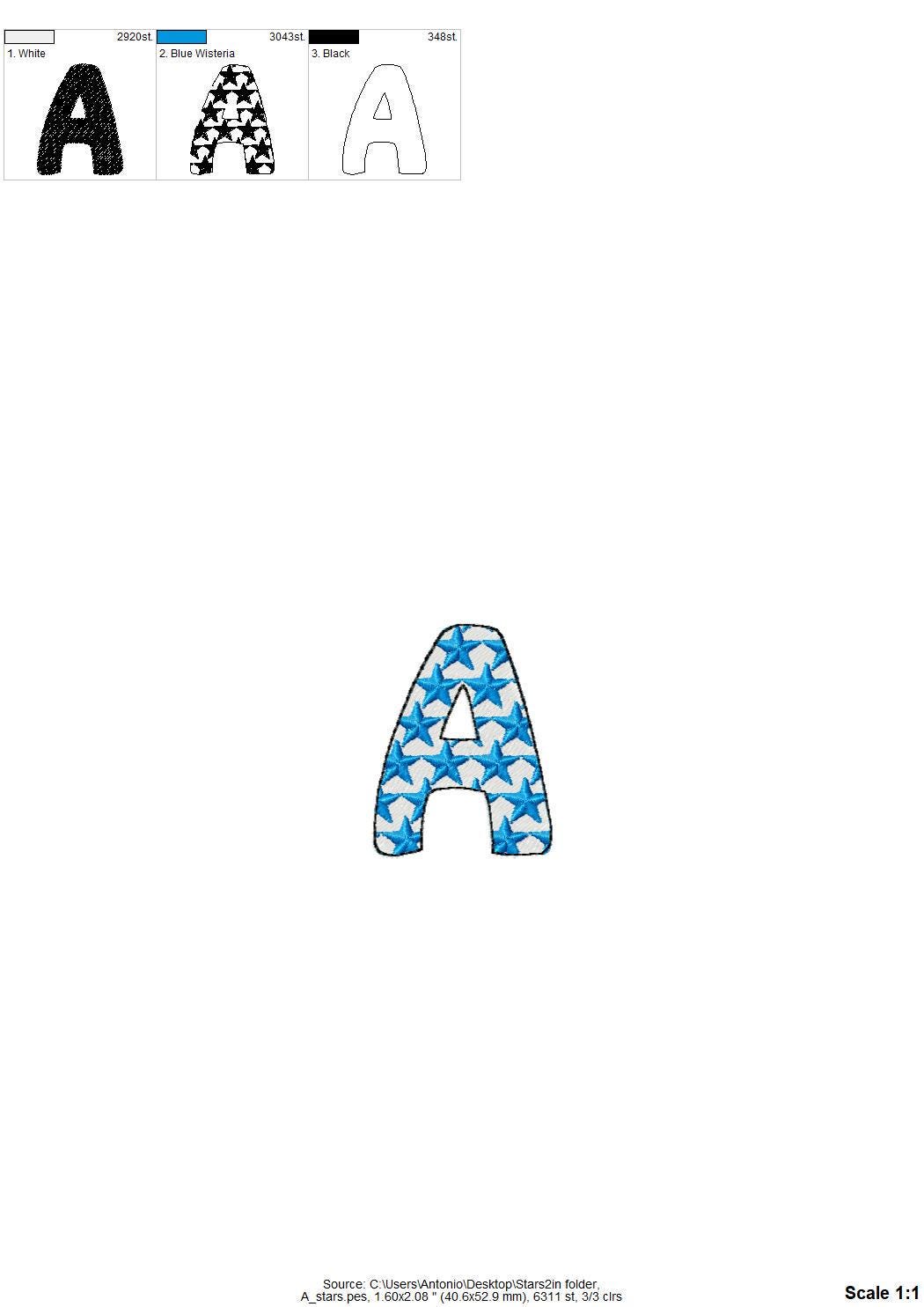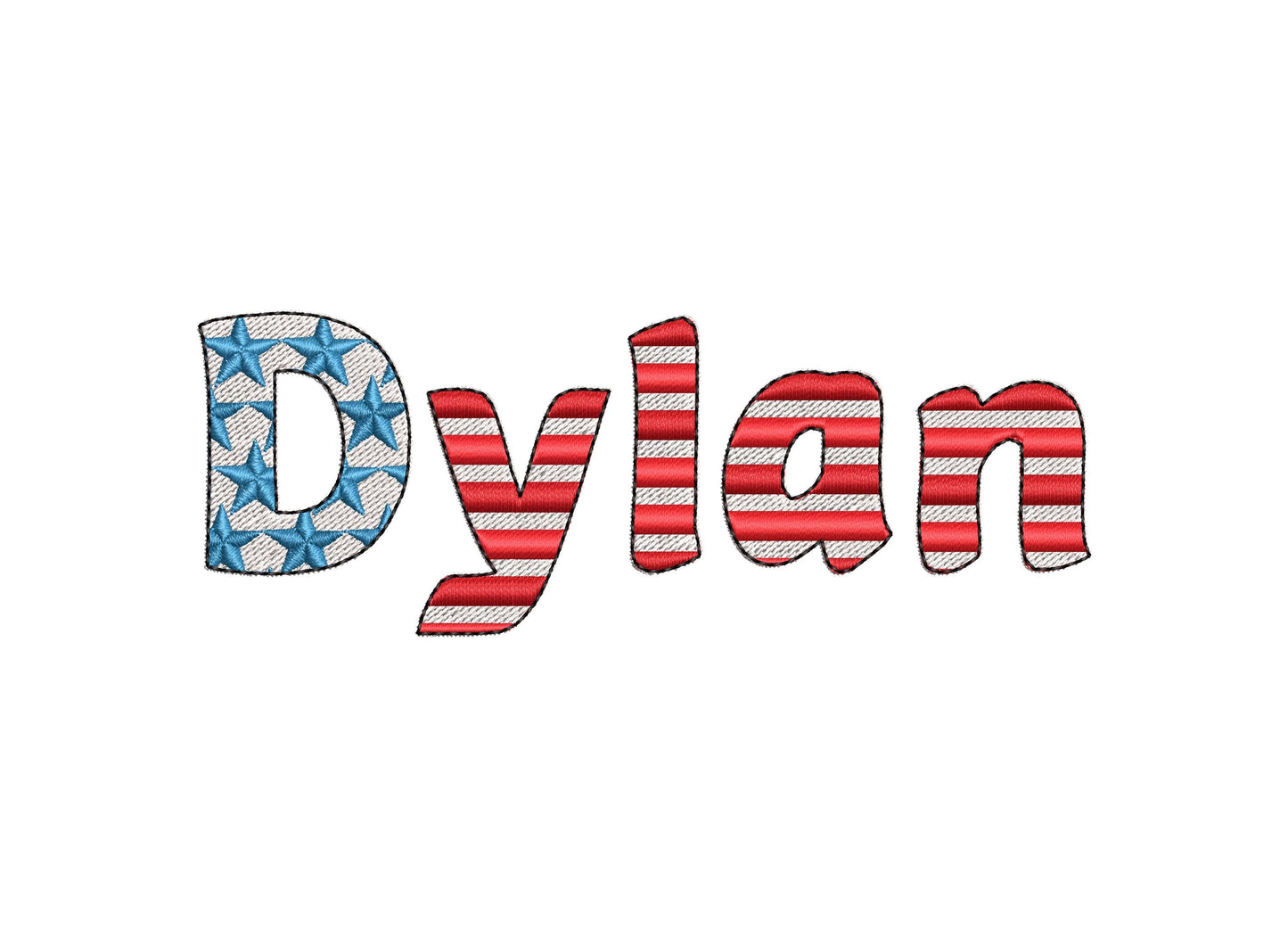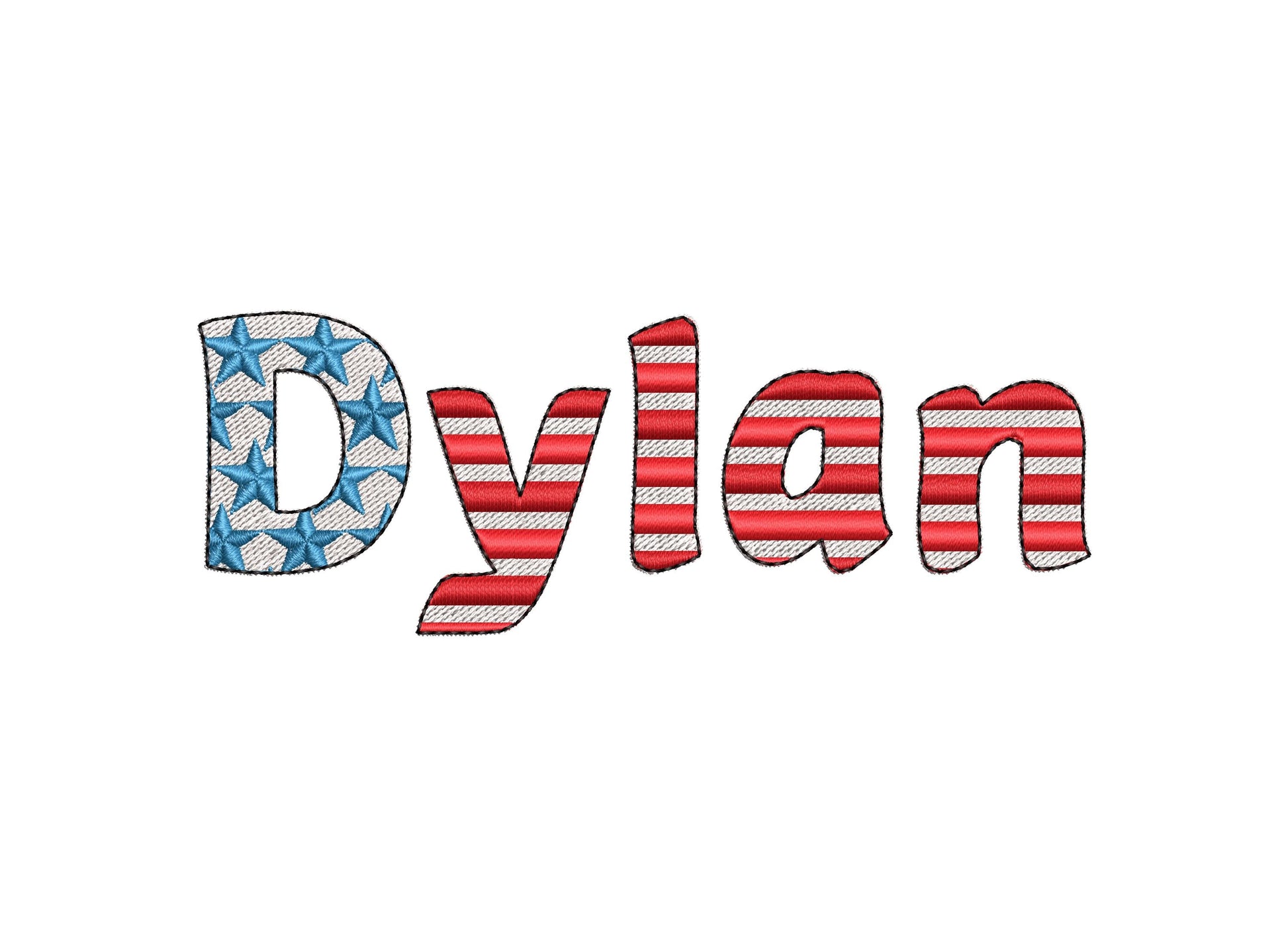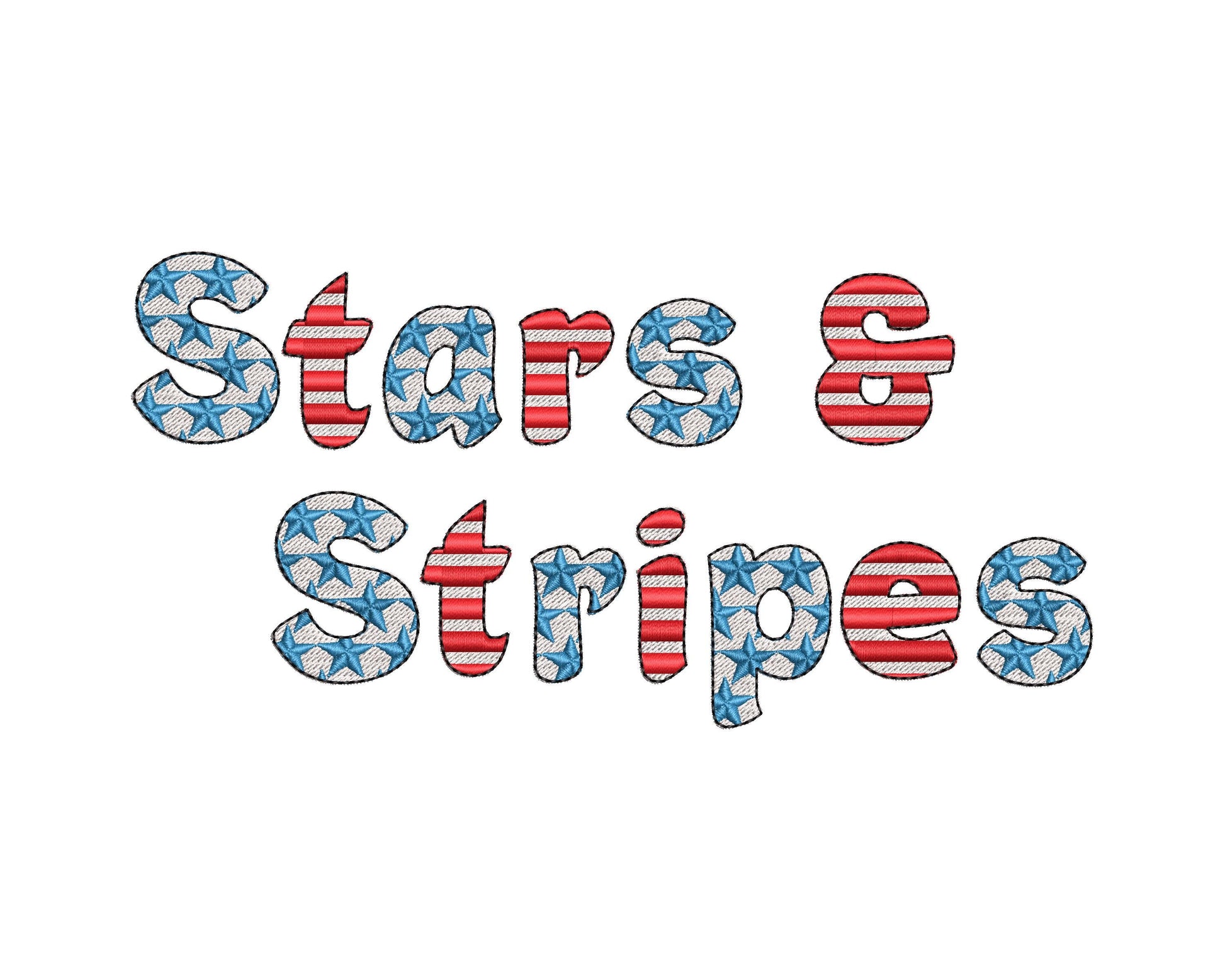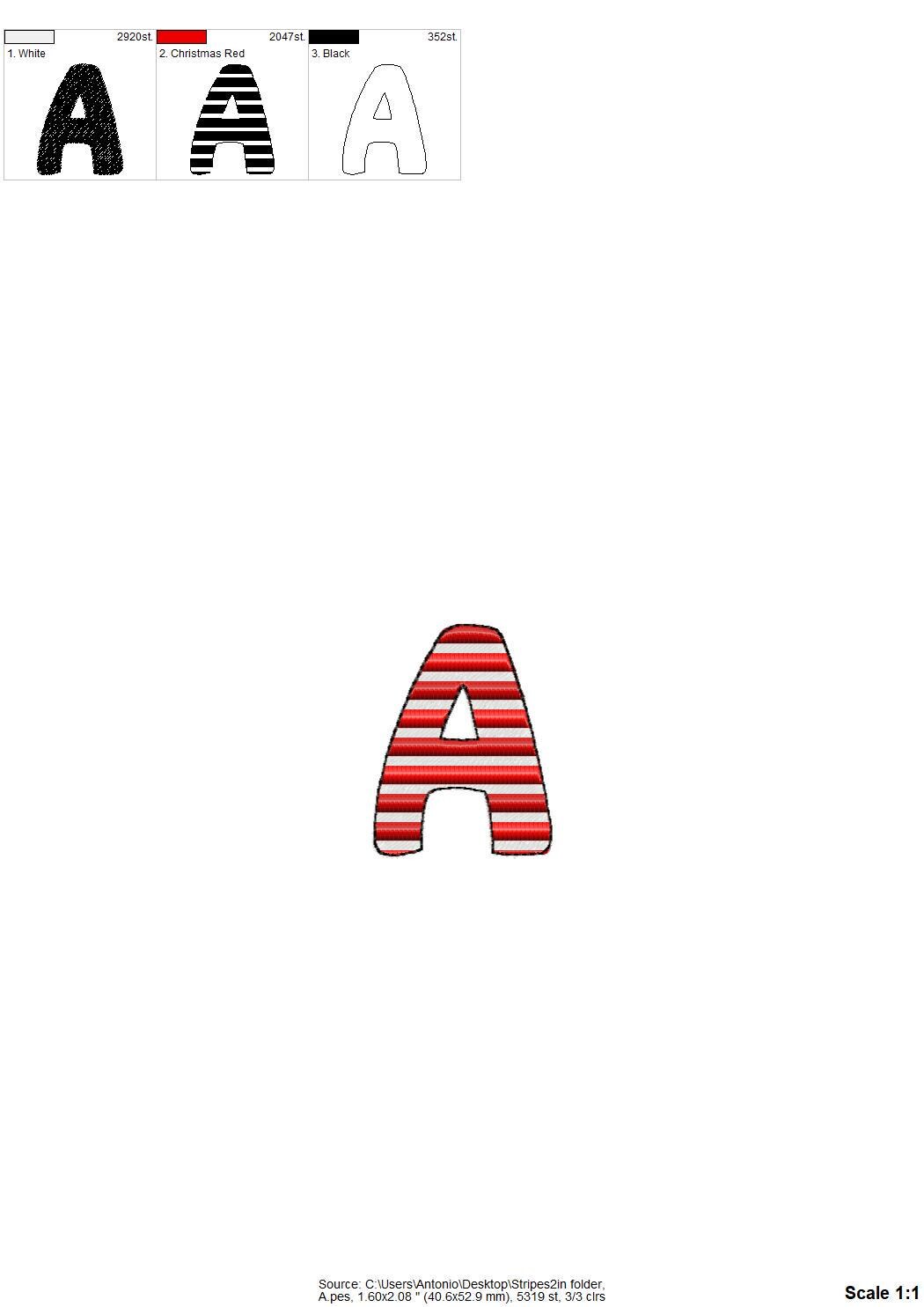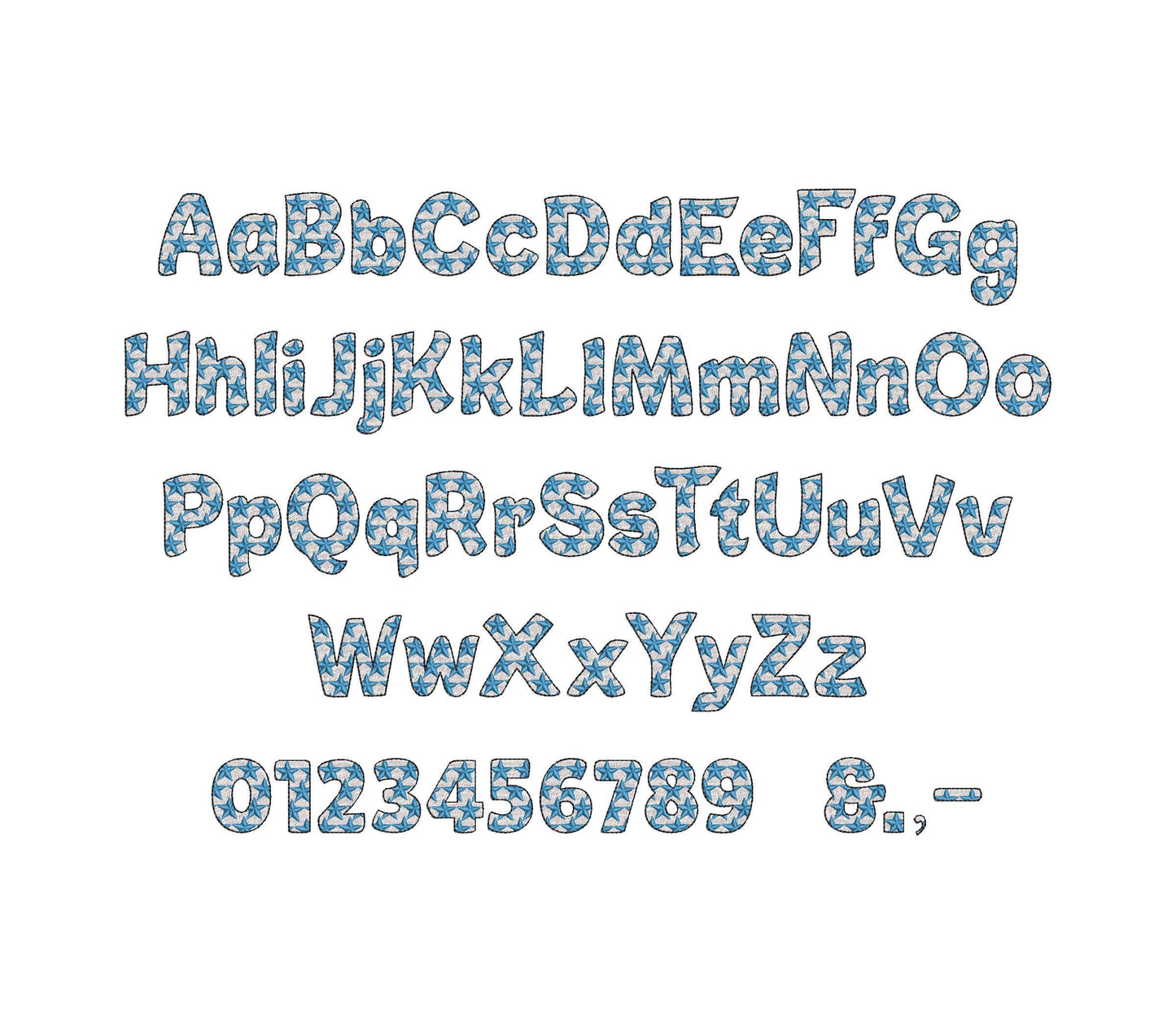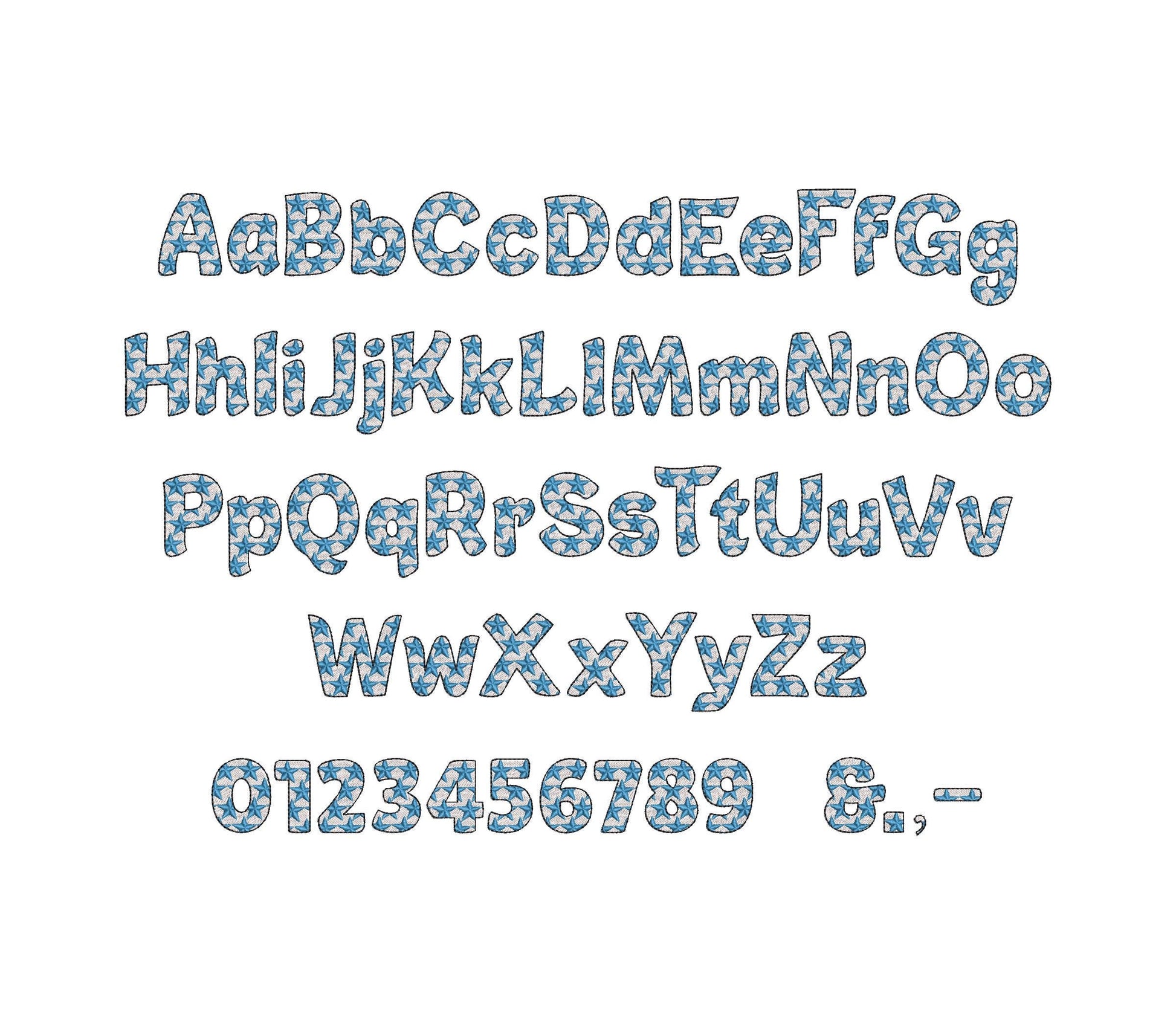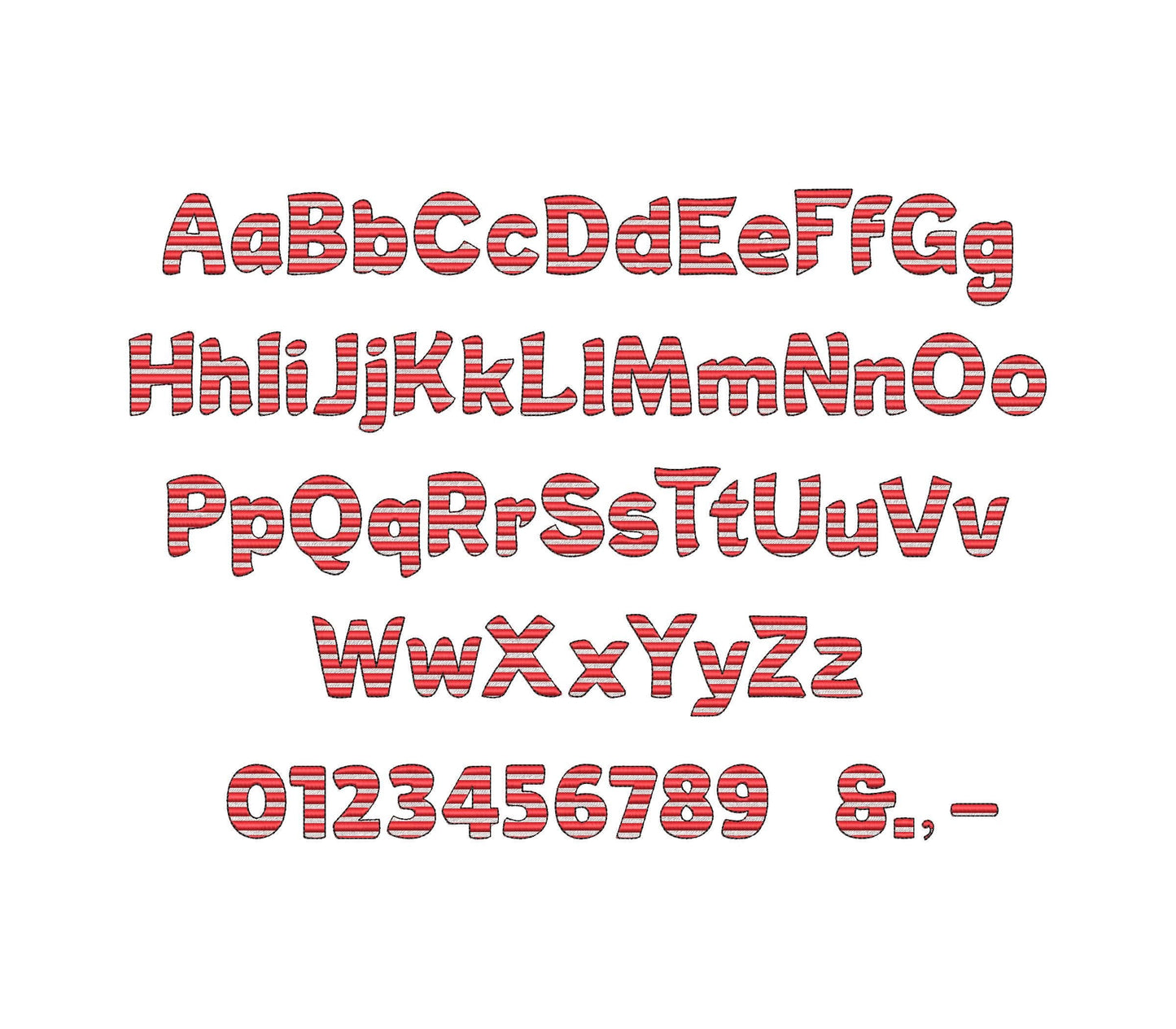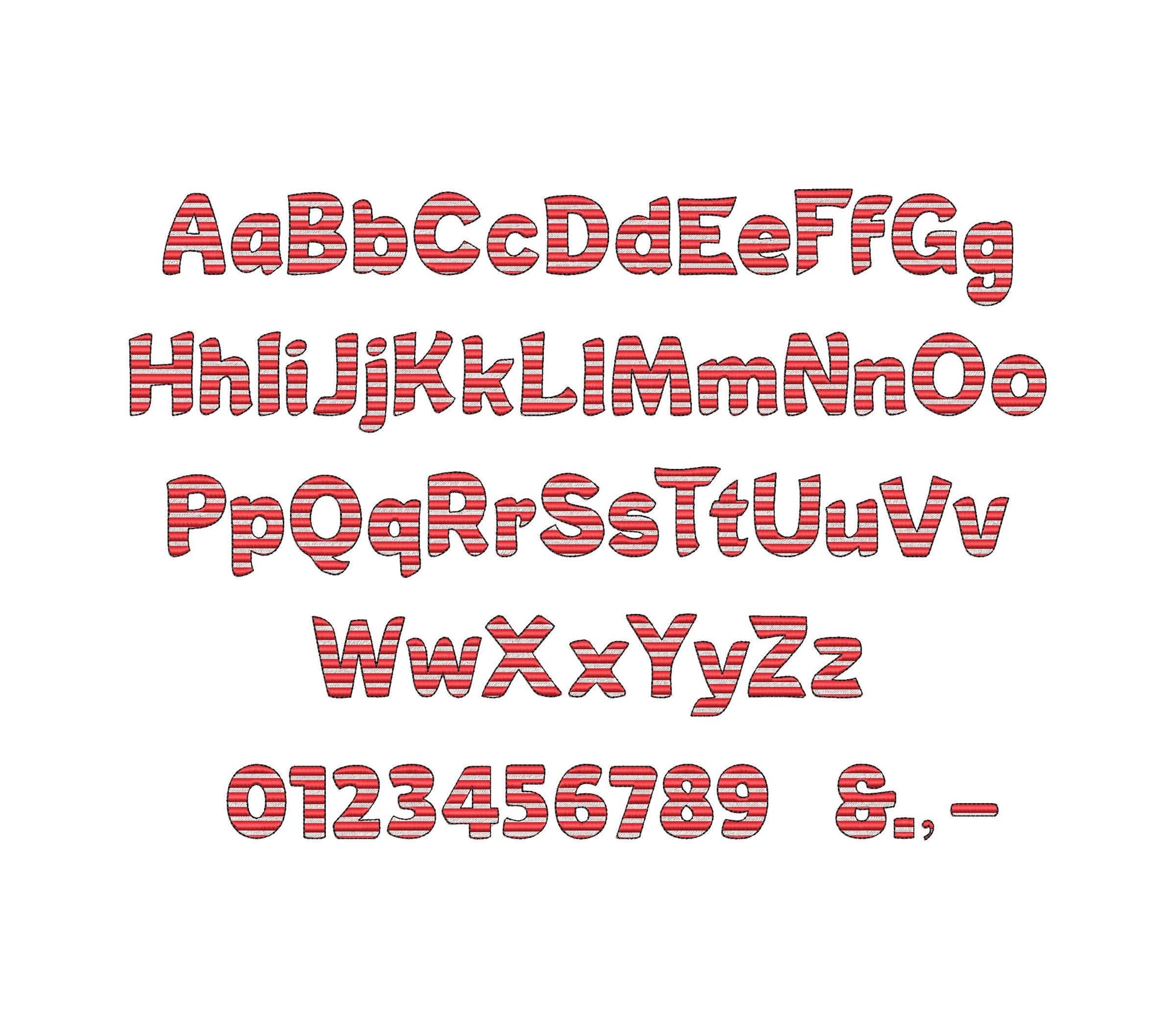
Each font has uppercase and lowercase letters, numbers and punctuation. Seven sizes: 0.8, 1, 1.2, 1.5, 1.7, 2 and 2.5 inches.
- 2 stars and stripes fill stitch fonts
- Uppercase, lowercase, numbers 0-9, punctuation
- 7 sizes, 0.8 to 2.5 in